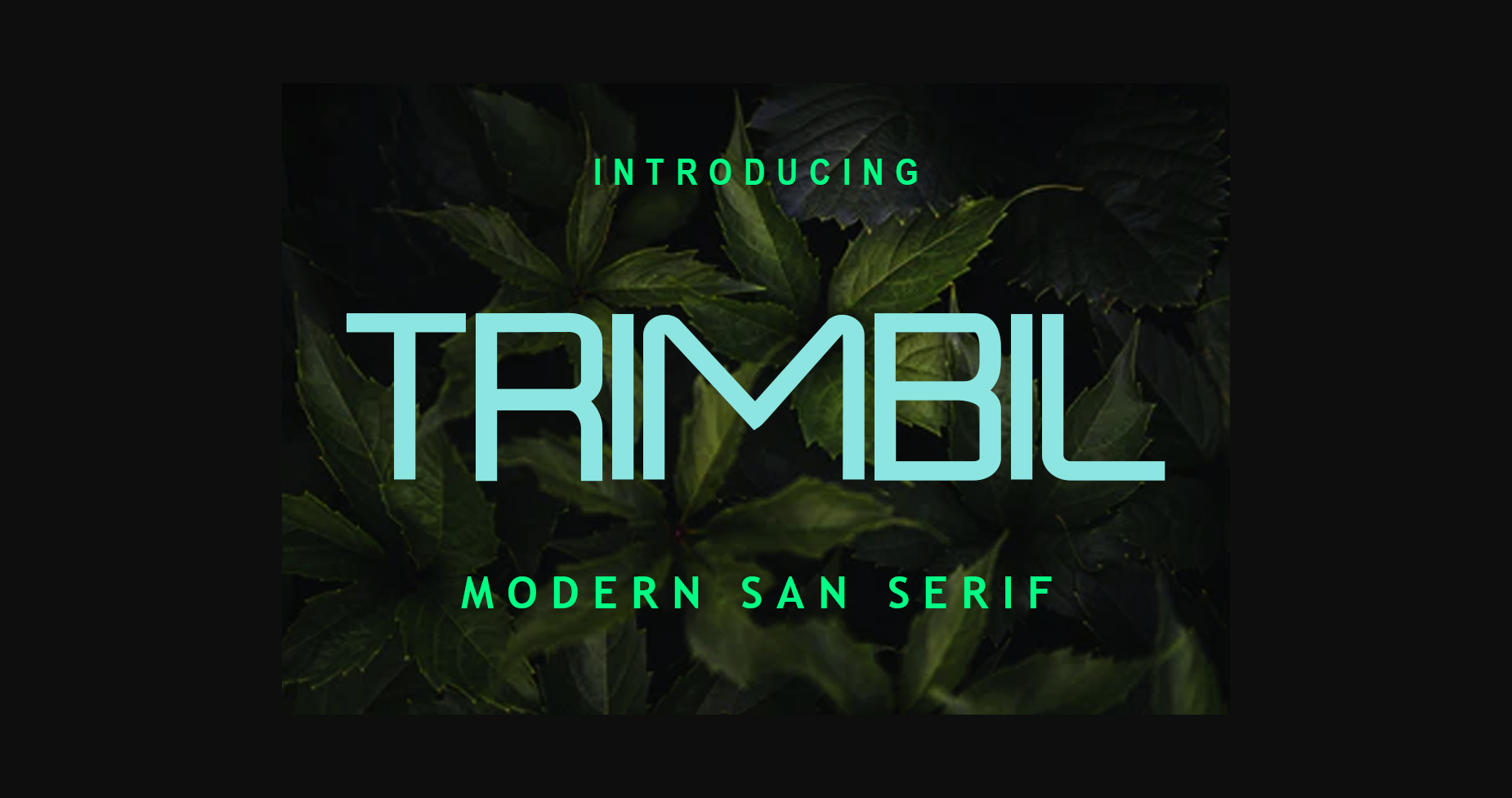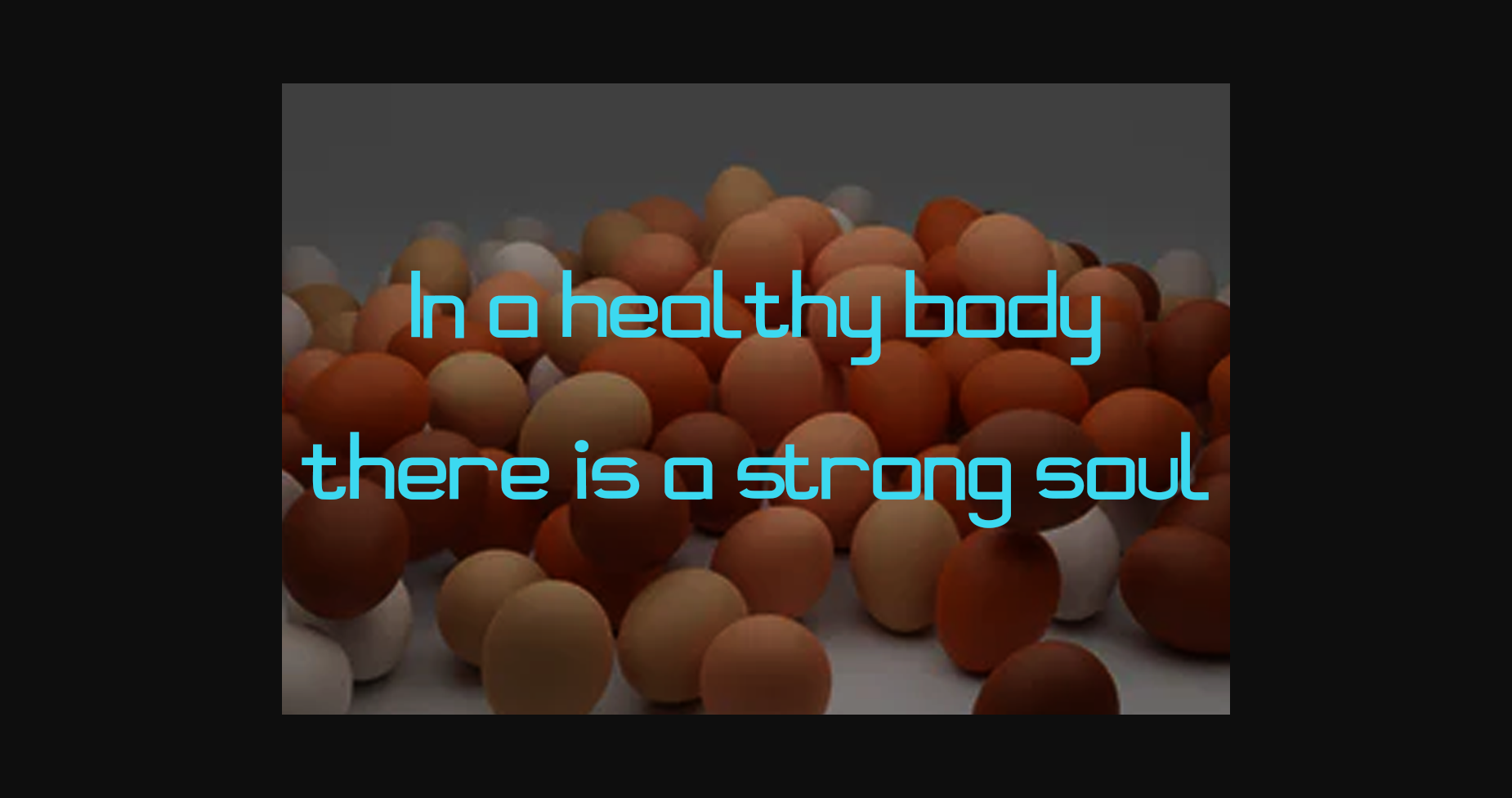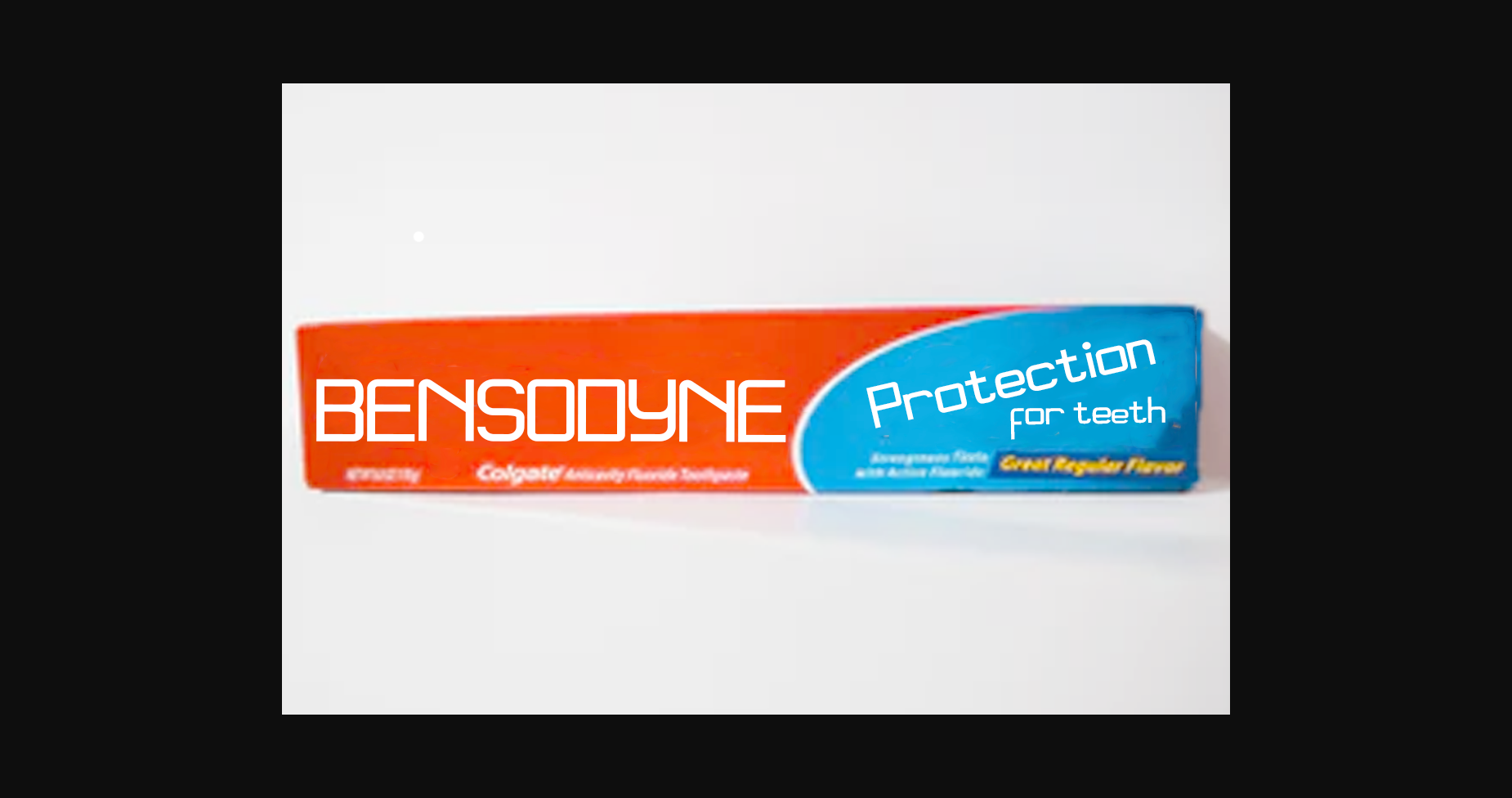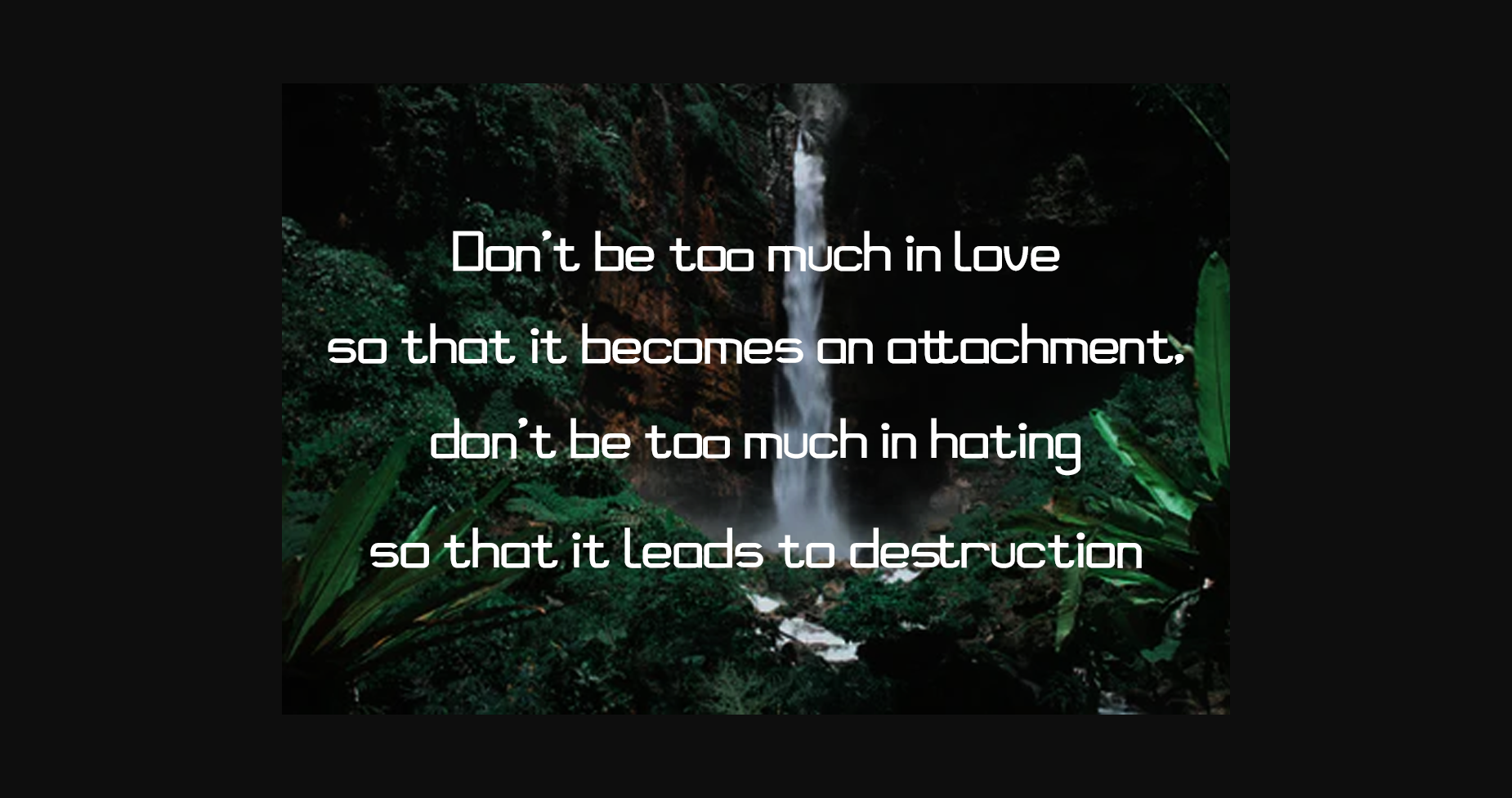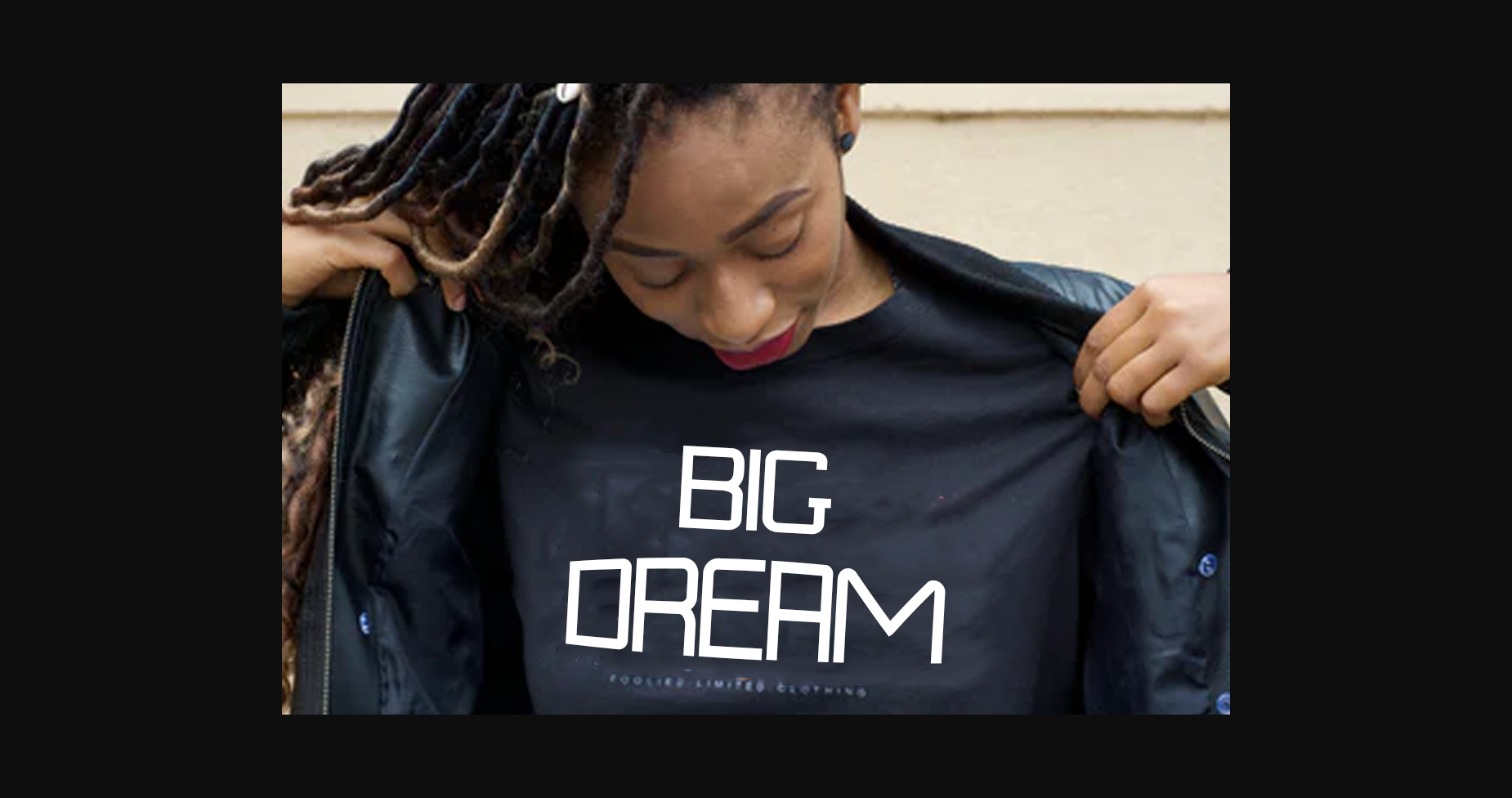
About Trimbil Font
Trimbil is a modern, techno looking and cool sans serif font. No matter the topic, this font will be an incredible asset to your fonts’ library, as it has the potential to elevate any creation.